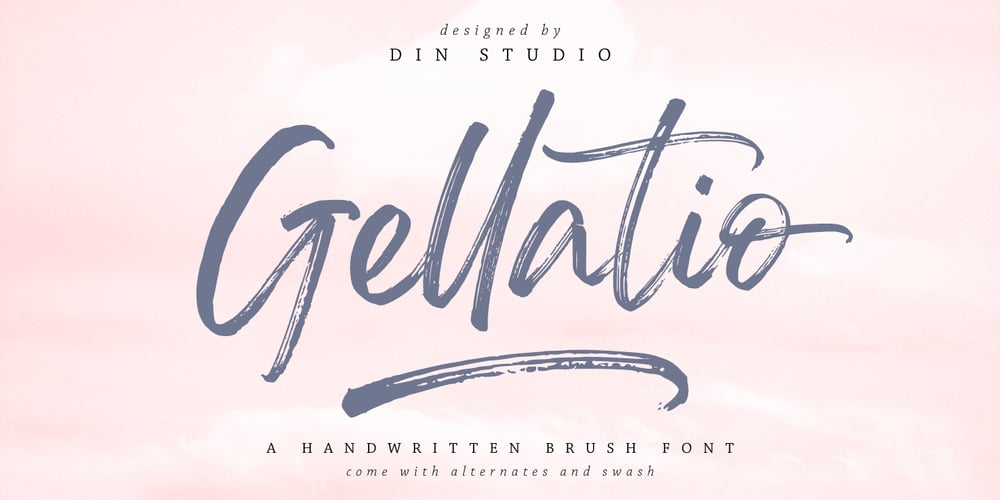
Gellatio
Gellatio font
Gellatio Font Family was designed by Donis Miftahudin and published by Din Studio. Gellatio contains 2 styles and family package options. Gellatio is a chic Brush Font. It will make your design project more beautiful. This font is suitable for any design like branding, fashion, print templates, quotes, wedding and more.Features : 88 Beautiful Alternates 6 Beautiful Ligatures 52 Swashes PUA encoded Multi-lingual Support Numerals and Punctuation (OpenType Standard) Full Support Thanks for visiting and purchasing my font.